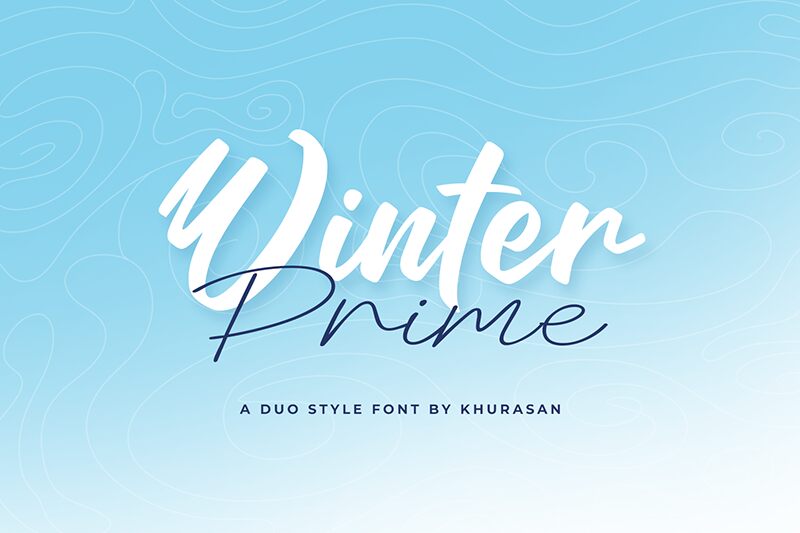
Winter Prime
Winter Prime font is a stunning handwritten style by Khurasan. Its flowing script balances casual elegance with a modern aesthetic, featuring expressive curves and smooth transitions. This fluidity makes it ideal to add a sophisticated yet personal touch to your design endeavors.